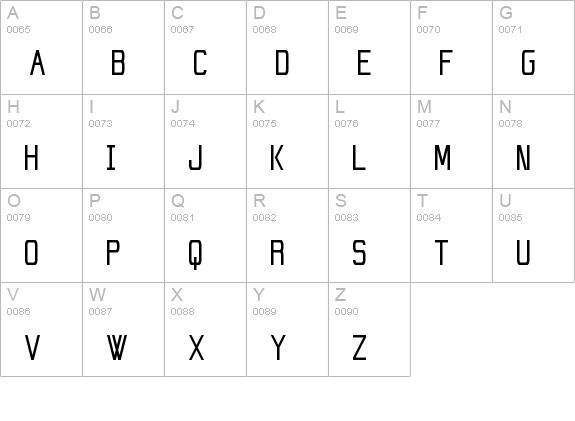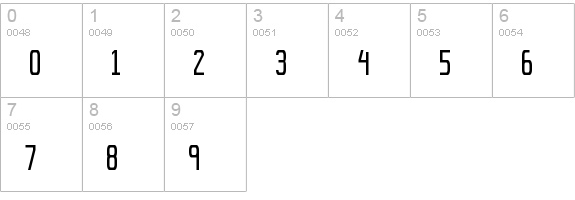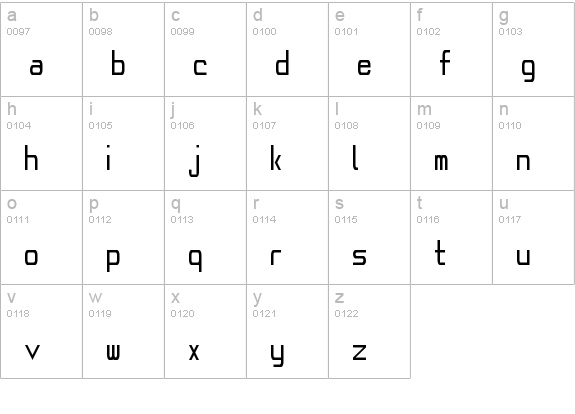
FortySeven NBP Font Details
FortySeven NBP font is a stunning display typeface that effortlessly combines elegance with a touch of modernity. With its clean lines and sharp edges, this font exudes a sense of professionalism and sophistication, making it perfect for a wide range of design projects. This versatile font features a unique blend of uppercase and lowercase characters, providing designers with the flexibility to create eye-catching typography that stands out from the crowd. Whether you're designing a logo, a poster, or a website, FortySeven NBP font is sure to make a lasting impression. One of the best things about FortySeven NBP font is that it is absolutely free to use. You can freely download this beautiful font at FontsMarket.com, ensuring that you have access to a high-quality typeface that won't break the bank. With its seamless integration into your design workflow, you can save both time and money while still achieving stunning results. Designed with precision and attention to detail, FortySeven NBP font is a true testament to the craftsmanship of its creators. Its crisp and clear letterforms ensure legibility at any size, making it ideal for both print and digital designs. Whether you're working on a small-scale project or a large-scale campaign, this font will provide the perfect balance of style and readability. So why wait? Embrace the beauty of FortySeven NBP font and elevate your designs to new heights. With its free availability at FontsMarket.com, you have the opportunity to enhance your creative endeavors without any cost. Download this exceptional font today and experience the difference it can make in your design work.